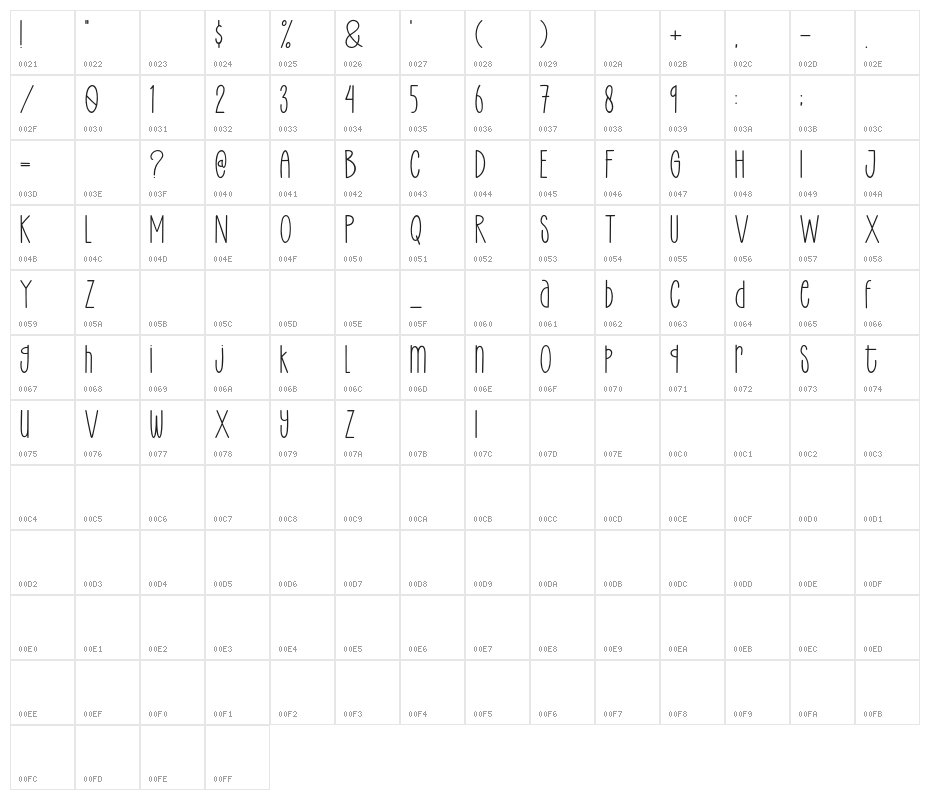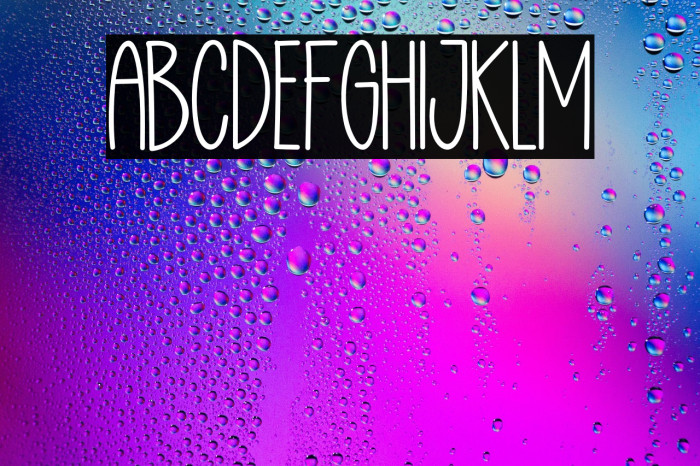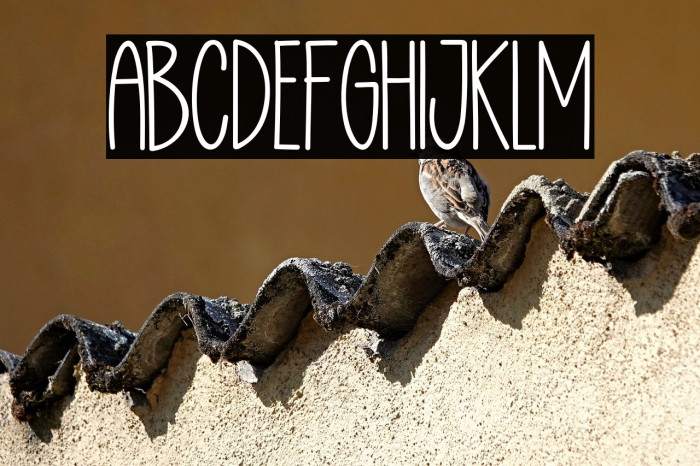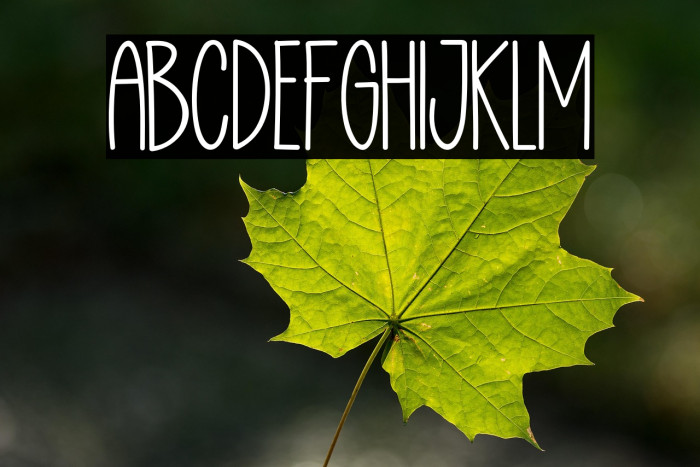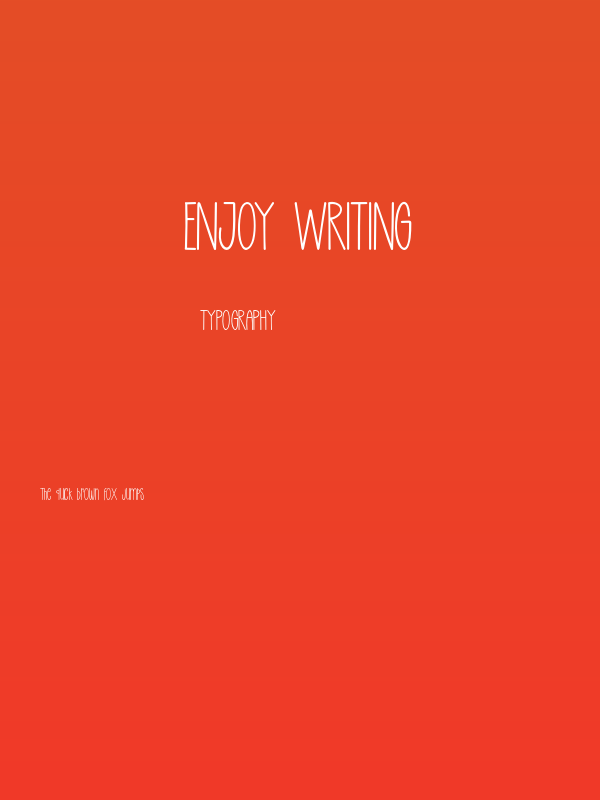
Enjoy Writing Font
Enjoy Writing Description
This font features a tall, narrow design with a playful and whimsical character. The letters are elongated, giving them a unique and distinctive appearance. The strokes are consistent in width, providing a clean and modern look. The uppercase and lowercase letters maintain a cohesive style, while the numbers and special characters complement the overall aesthetic. This font's design is both eye-catching and versatile, making it suitable for various creative projects.
| Width | Condensed |
| Use Case | Logos, Posters, Creative projects |
| Proposed Projects | Ideal for children's books, playful branding, greeting cards, and creative posters. |